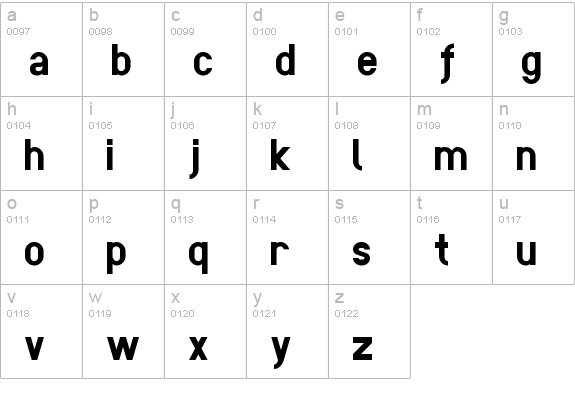
Yoru_akari Font Details
Yoru_akari font is a beautifully designed typeface that combines elegance with a touch of playfulness. Its sleek and modern lines make it perfect for a wide range of design projects, from logos and branding to invitations and headlines. One of the best things about Yoru_akari font is that it is completely free. Yes, you read that right - this stunning font is available for download at FontsMarket.com, completely free of charge. Whether you're a professional graphic designer or a hobbyist looking to add a touch of sophistication to your personal projects, Yoru_akari font is the perfect choice. With its clean and legible characters, Yoru_akari font is incredibly versatile. It works seamlessly in both print and digital mediums, making it suitable for everything from business cards and brochures to websites and social media graphics. Its wide range of weights and styles also allows for endless creative possibilities, ensuring that your designs always stand out from the crowd. Downloading Yoru_akari font is quick and easy. Simply visit FontsMarket.com and browse through their extensive collection of fonts. Once you find Yoru_akari font, simply click the download button and it will be yours to use and enjoy. And the best part? You can use it for both personal and commercial projects without any restrictions. So why wait? Elevate your designs with the elegant and versatile Yoru_akari font. Download it for free today at FontsMarket.com and let your creativity soar.